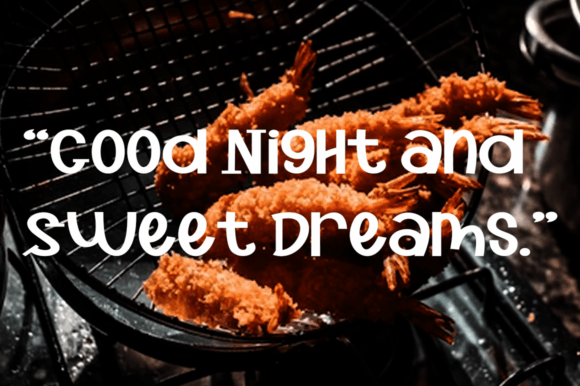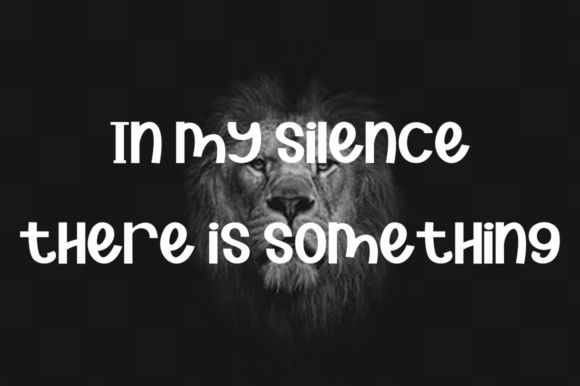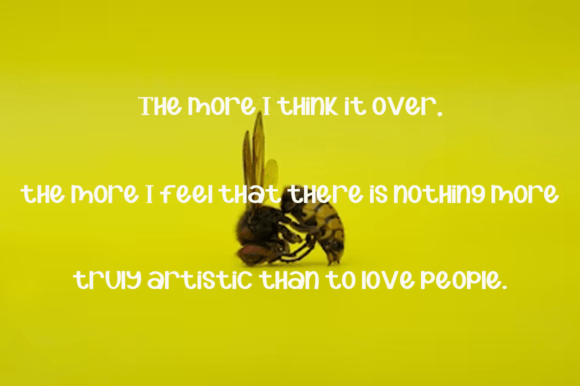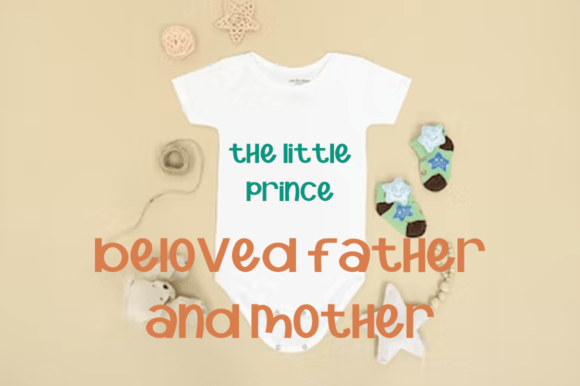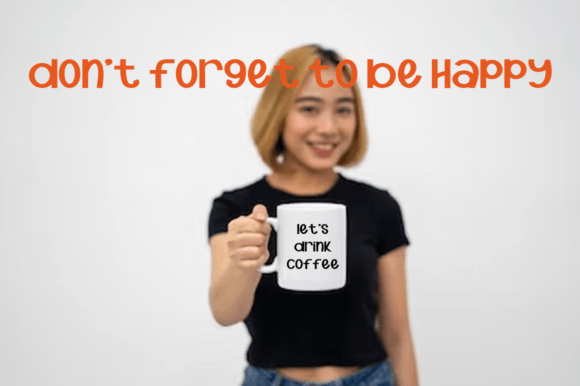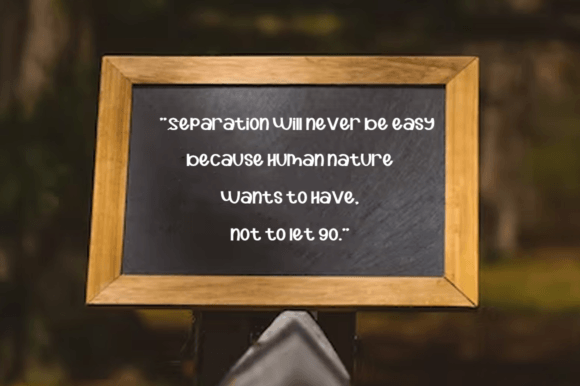
Discover the Quirky Charm of Bojong Font: A Unique Display Font for Creative Projects
Are you tired of using the same old fonts for your design projects? Look no further than Bojong Font, a unique and interesting display font that’s sure to add a touch of personality to your work. A little bit quirky, this font looks incredibly adept on a wide variety of contexts, making it perfect for designers and crafters looking to stand out from the crowd.
What Makes Bojong Font So Special?
Bojong Font is a one-of-a-kind display font that boasts a distinctive and eye-catching style. Its quirky charm is sure to capture the attention of your audience, making it perfect for projects that require a bit of personality. Whether you’re working on a logo, a poster, or a website, Bojong Font is sure to add a touch of whimsy and fun to your design.
One of the things that sets Bojong Font apart from other fonts is its versatility. It can be used in a wide range of contexts, from playful and informal to more formal and professional. This makes it an excellent choice for designers who want to create a cohesive brand identity across multiple platforms.
Key Features of Bojong Font
So, what makes Bojong Font so special? Here are just a few of its key features:
- Unique and quirky design: Bojong Font has a distinctive and eye-catching style that’s sure to capture the attention of your audience.
- Versatile: This font can be used in a wide range of contexts, from playful and informal to more formal and professional.
- Display font: Bojong Font is designed specifically for display purposes, making it perfect for headlines, titles, and other attention-grabbing elements.
- Easy to read: Despite its quirky design, Bojong Font is surprisingly easy to read, making it perfect for use in a variety of applications.
How to Use Bojong Font in Your Design Projects
So, how can you use Bojong Font in your design projects? Here are a few ideas to get you started:
- Logos and branding: Bojong Font is perfect for creating unique and memorable logos that will help your brand stand out from the crowd.
- Posters and flyers: This font is ideal for creating eye-catching posters and flyers that will grab the attention of your audience.
- Web design: Bojong Font can be used to add a touch of personality to your website, making it more engaging and memorable for visitors.
- Social media graphics: This font is perfect for creating social media graphics that will help your brand stand out from the crowd.
Tips for Getting the Most Out of Bojong Font
Here are a few tips for getting the most out of Bojong Font:
- Use it sparingly: Bojong Font is a display font, so it’s best to use it sparingly to avoid overwhelming your audience.
- Experiment with different sizes and colors: This font looks great in a variety of sizes and colors, so don’t be afraid to experiment to find the perfect combination for your project.
- Pair it with other fonts: Bojong Font pairs well with a variety of other fonts, so consider combining it with other fonts to create a unique and interesting design.
Bojong Font is a unique and interesting display font that’s perfect for designers and crafters looking to add a touch of personality to their work. Its quirky charm and versatility make it an excellent choice for a wide range of projects, from logos and branding to posters and web design. With its ease of use and flexibility, Bojong Font is sure to become a go-to font in your design arsenal.